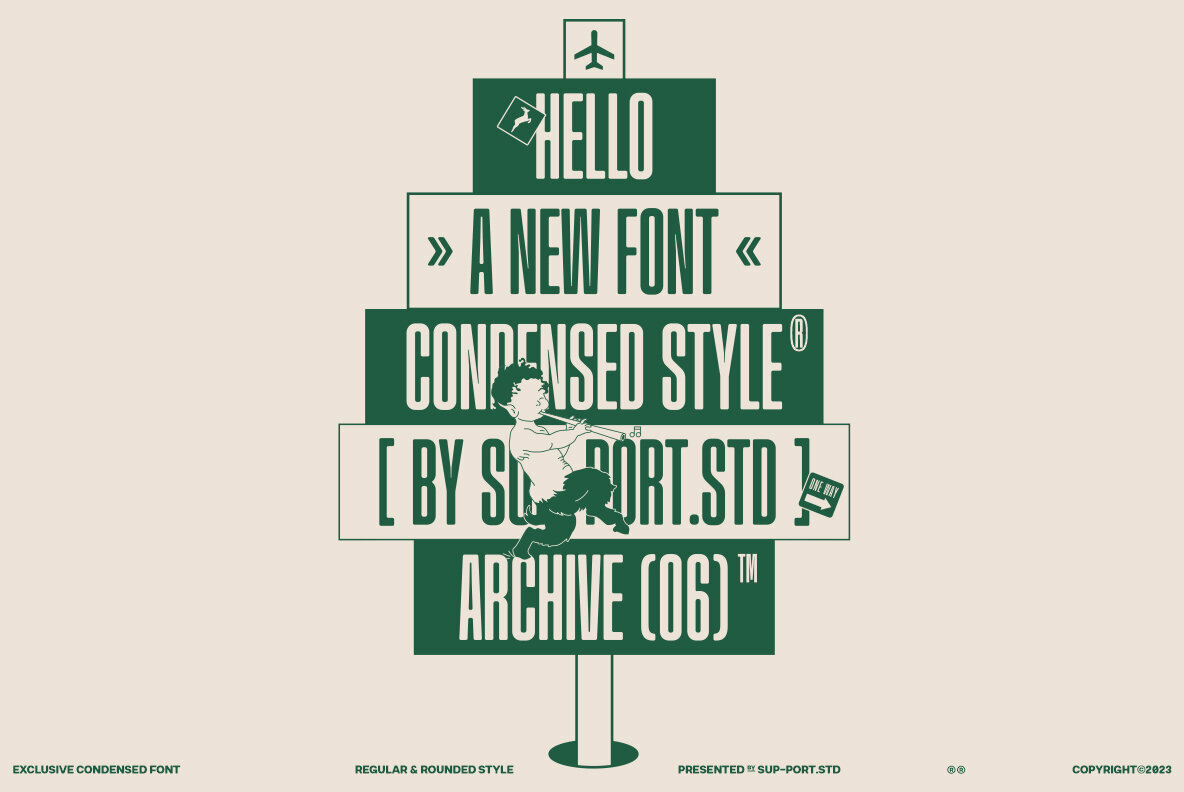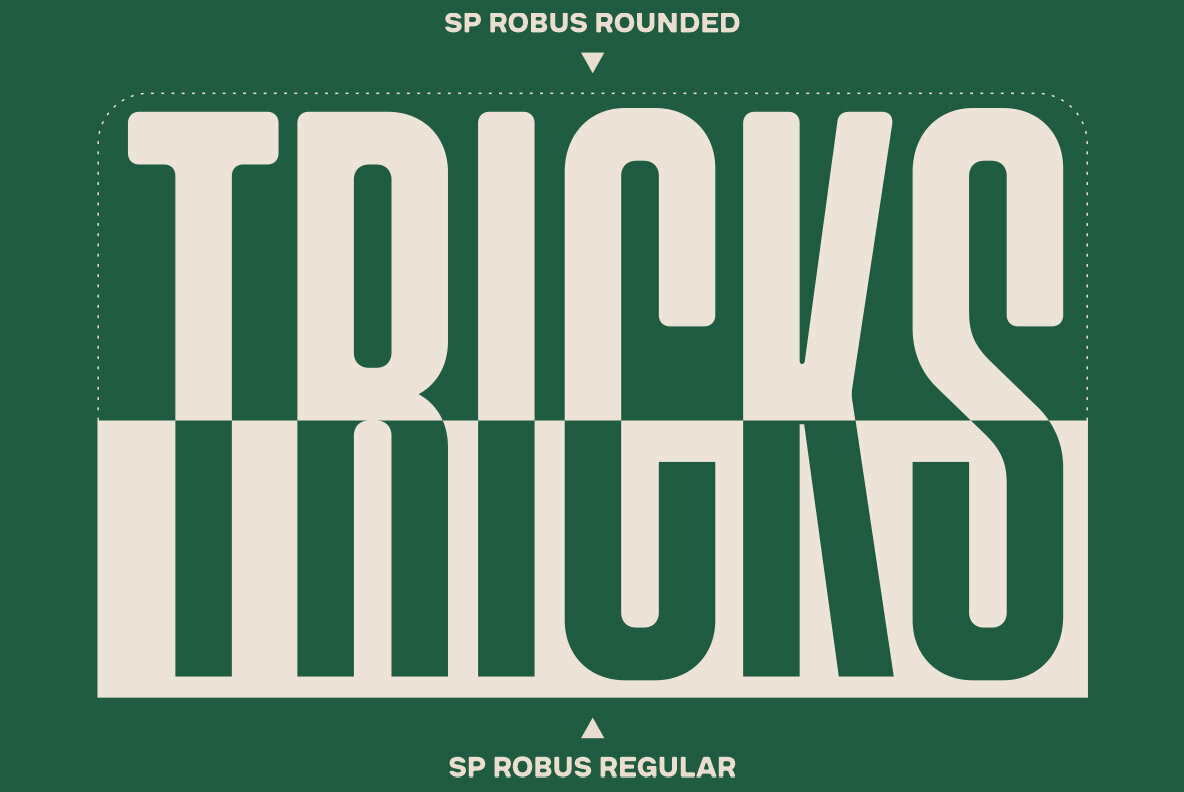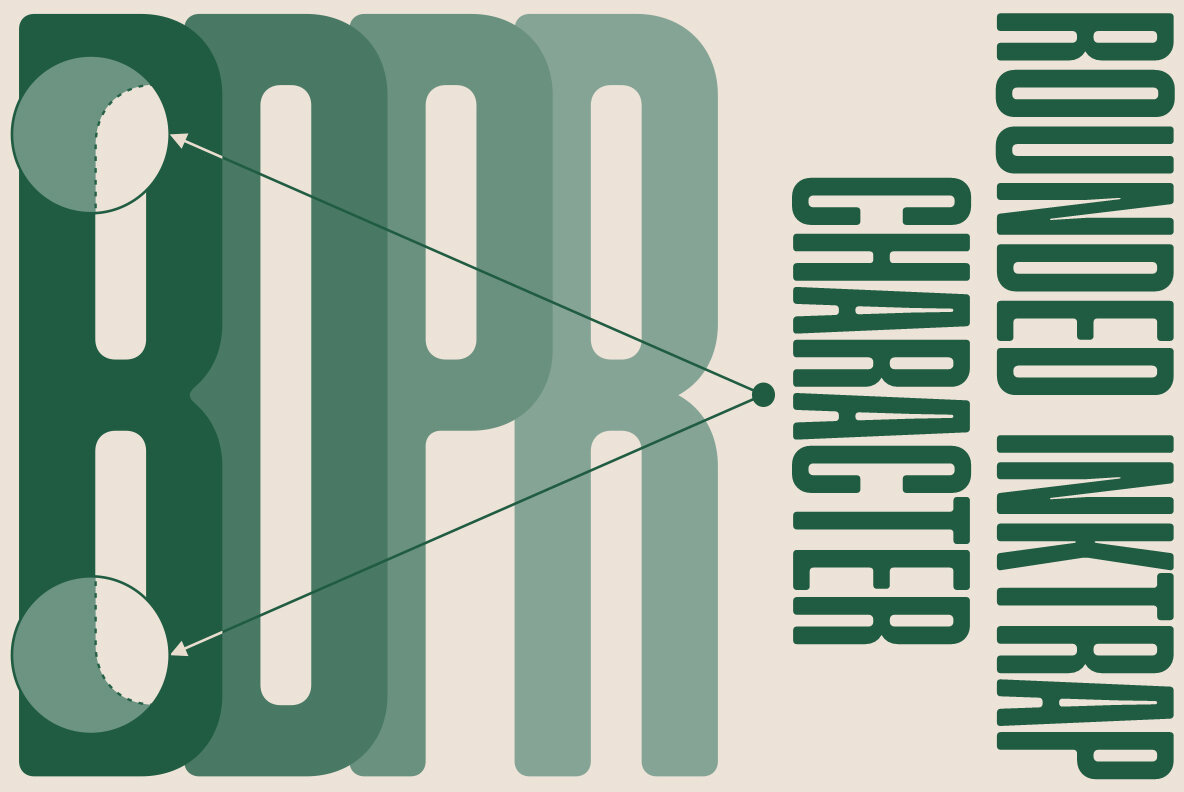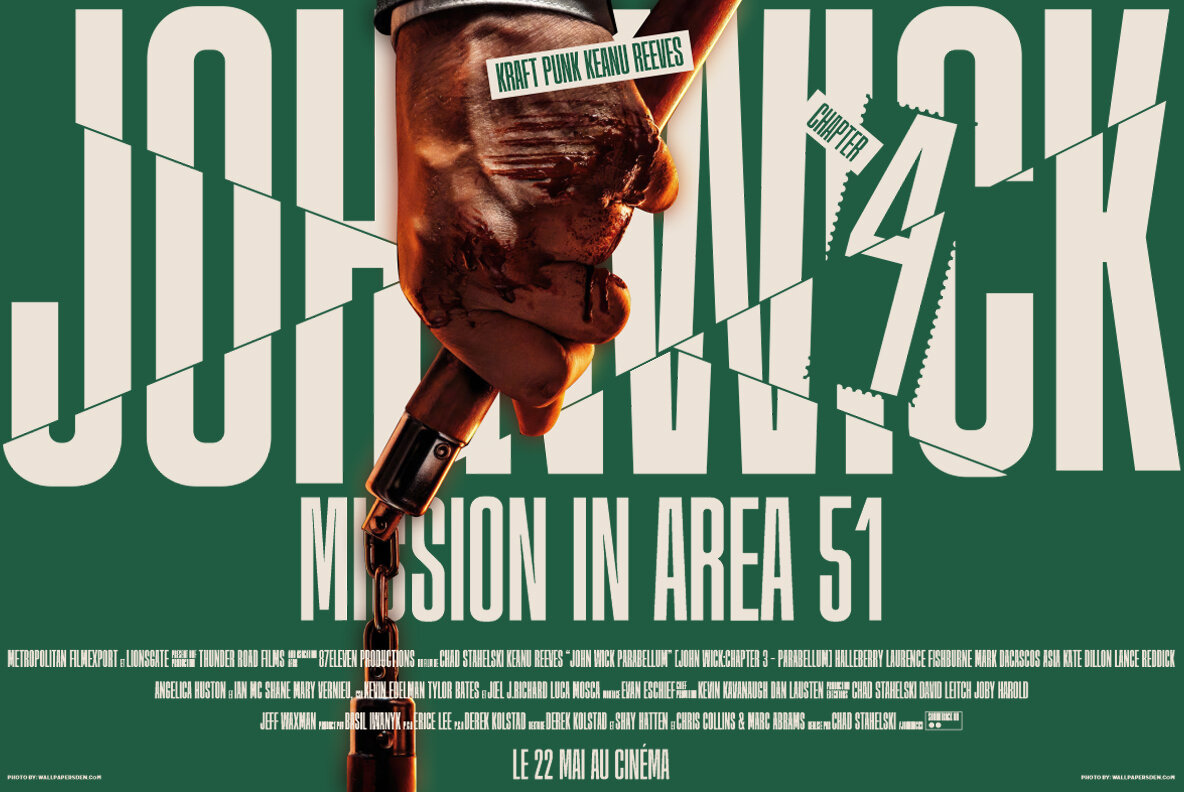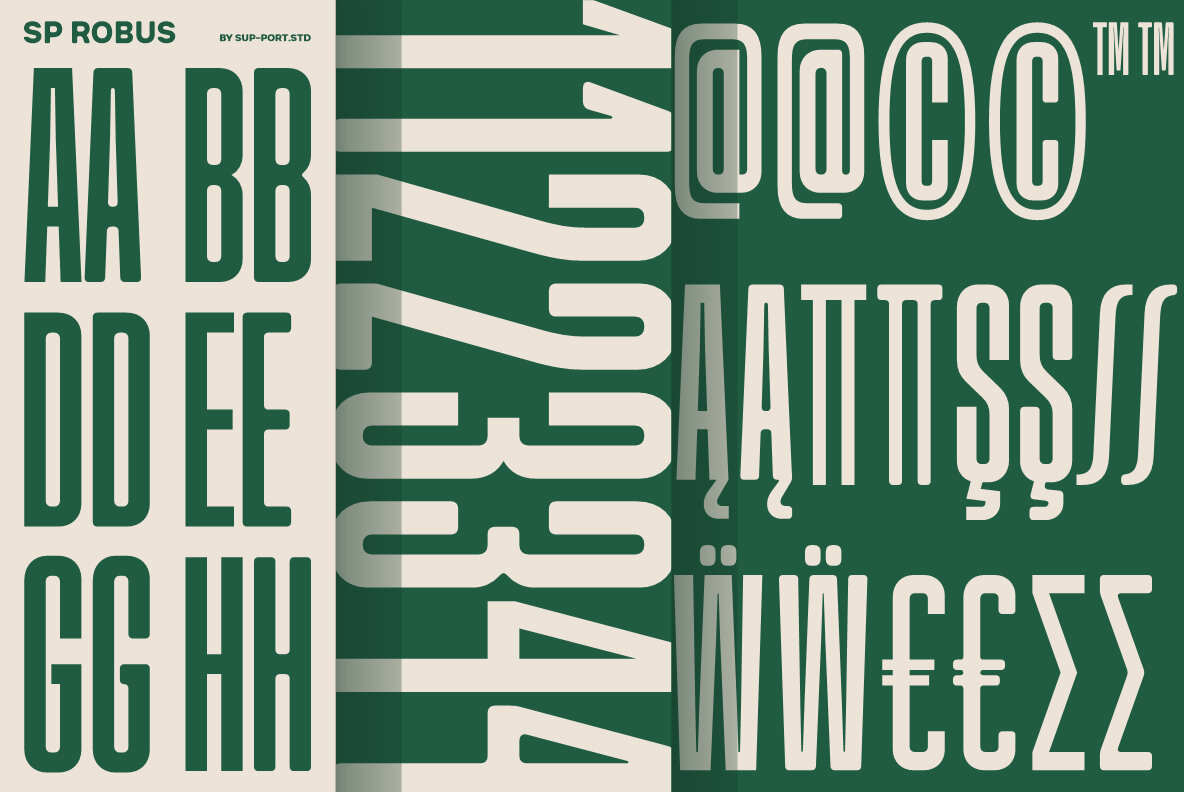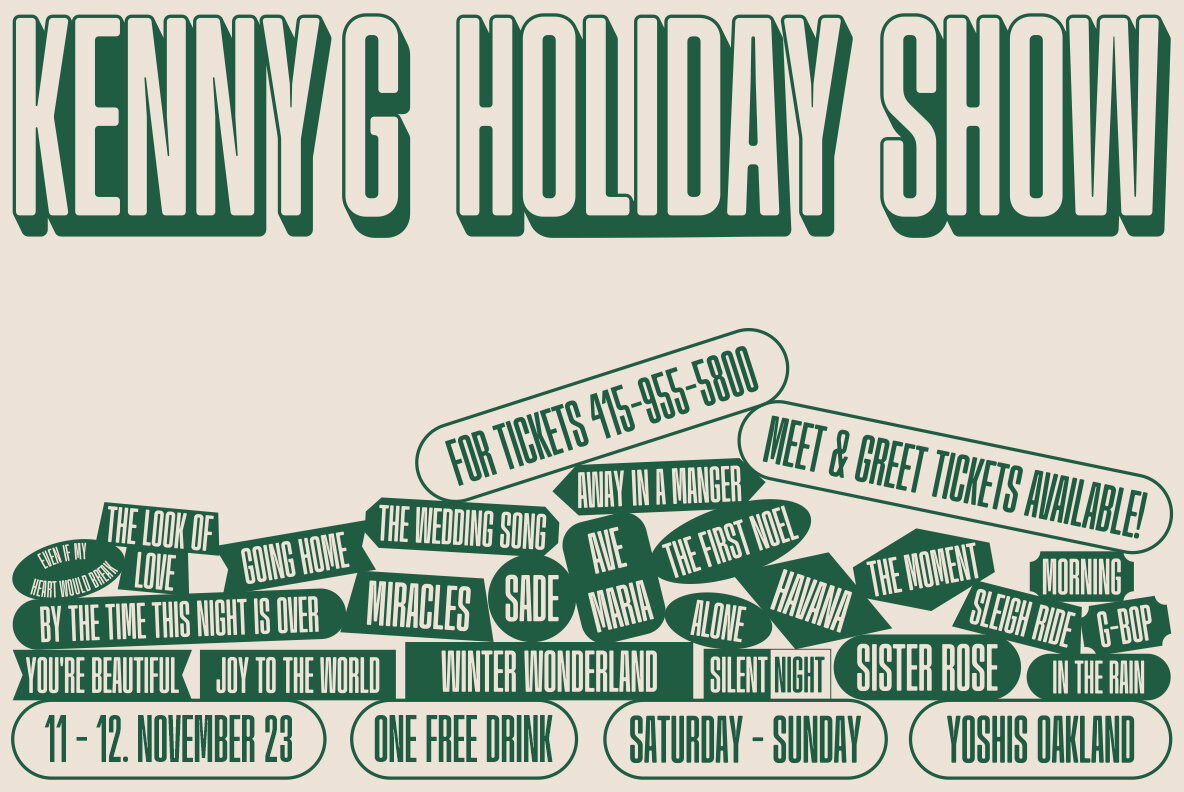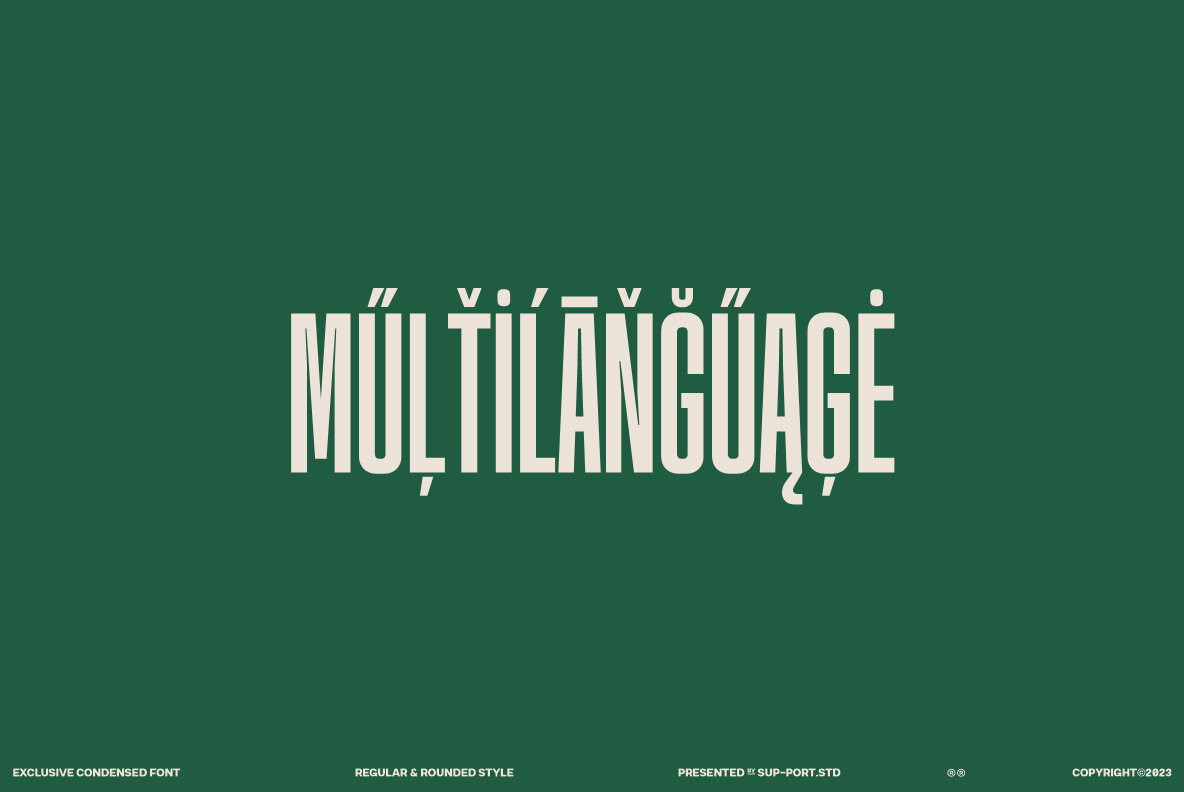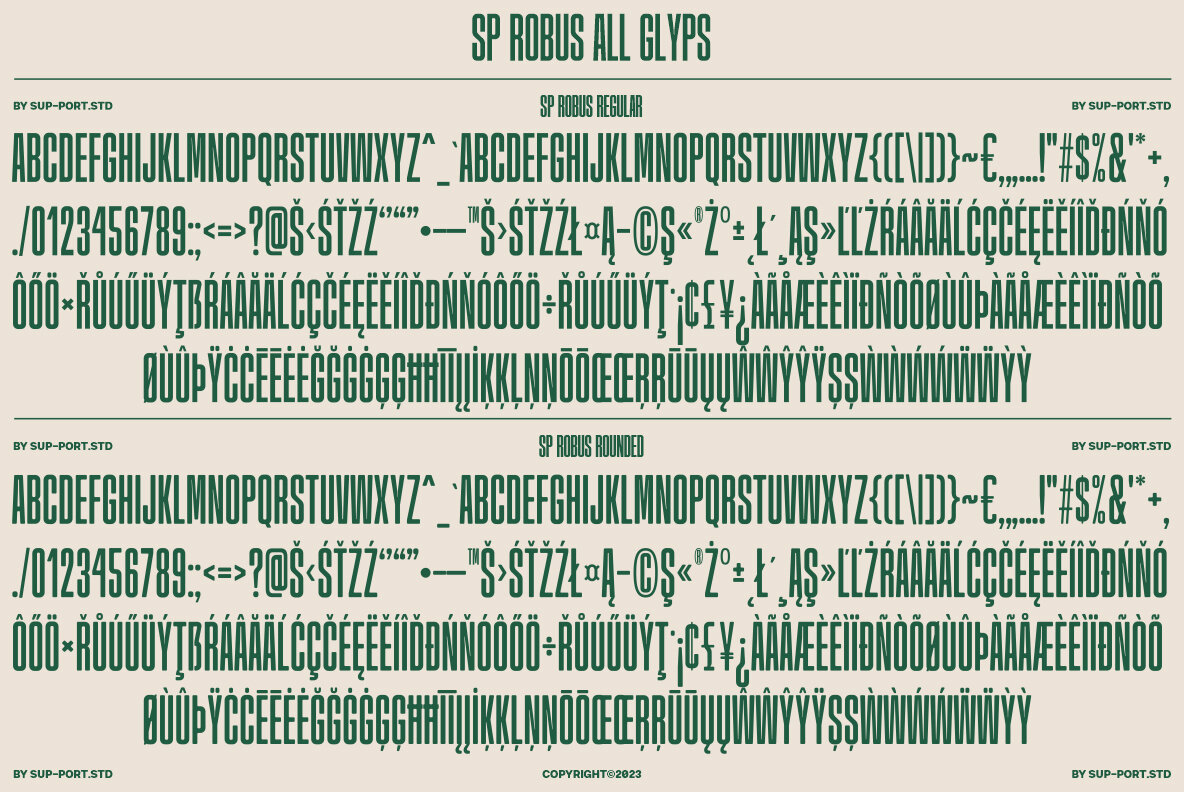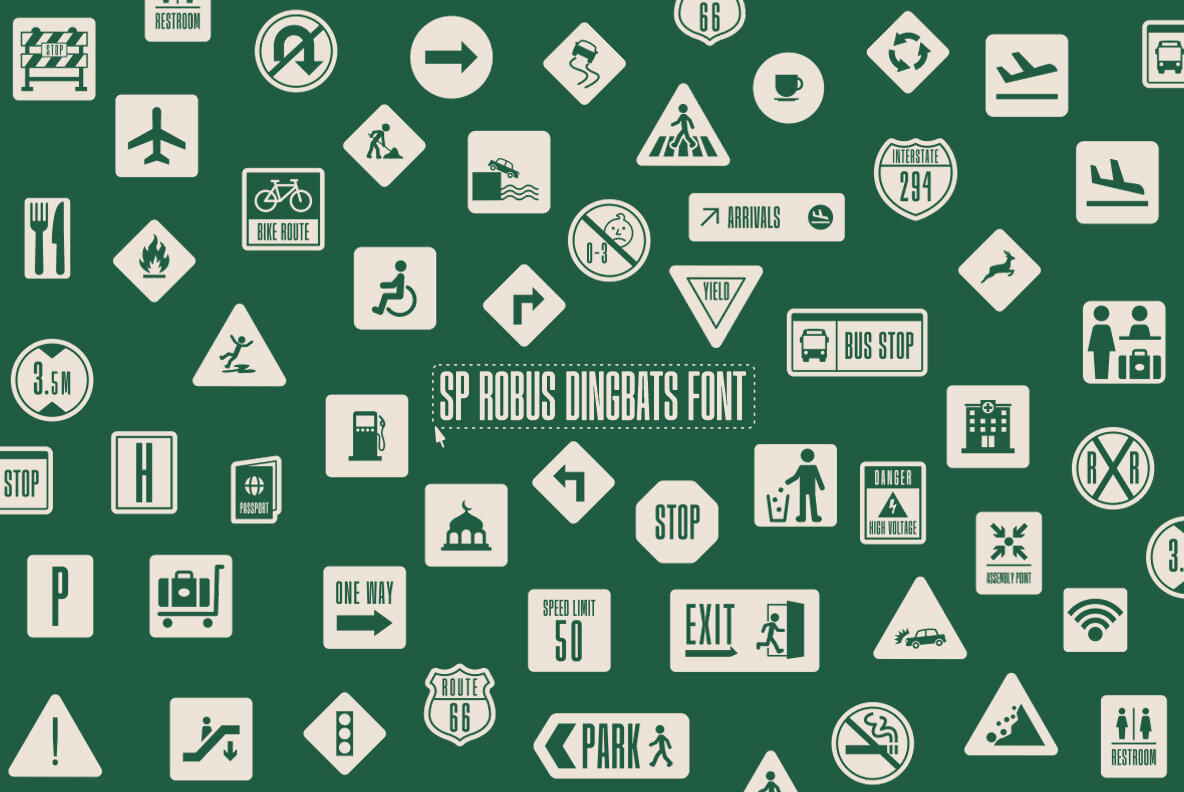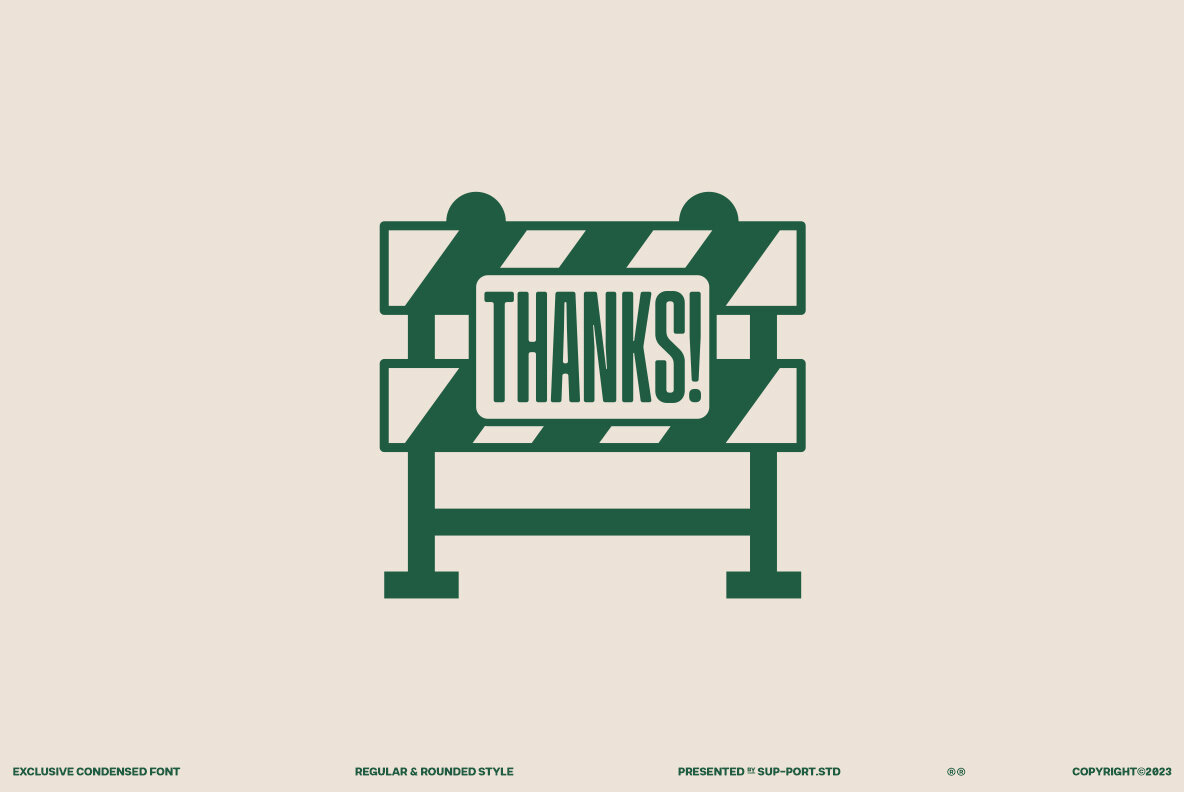
SP ROBUS Font
SPROBUS Regular
SPROBUS Dingbat
SPROBUS Rounded
Meet SP ROBUS, a condensed sans serif family of two styles (Regular & Rounded) plus a Dingbat font, meticulously crafted with current trends in mind - street, modern, and sleek. Perfect for versatile design projects, it features OpenType attributes like ligatures and ordinals, along with multi-lingual support, currency figures, numerals, punctuation, and arrows. Ideal for graphic design, signage, movie posters, logos, print, business cards, and branding materials, SP ROBUS promises to be an excellent asset to your design toolkit.